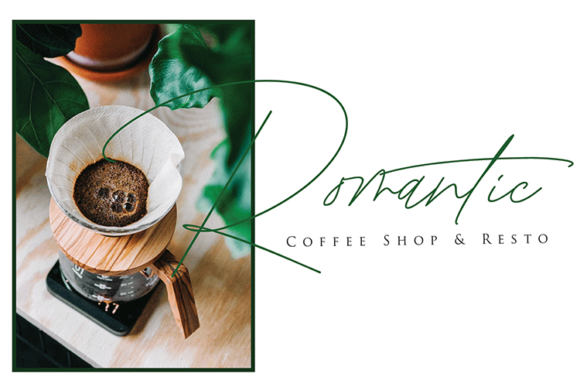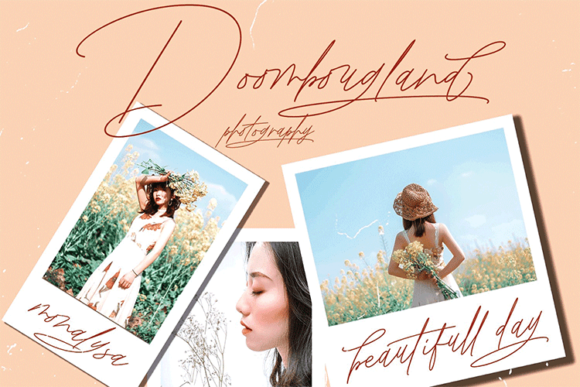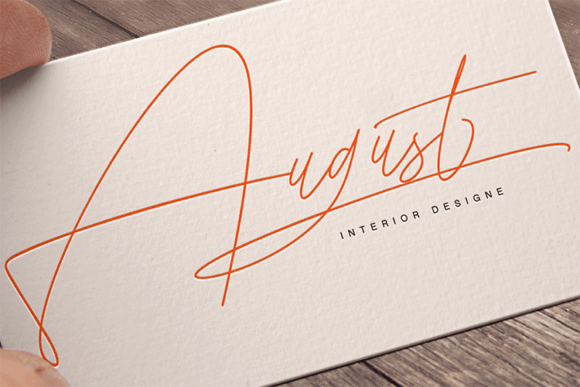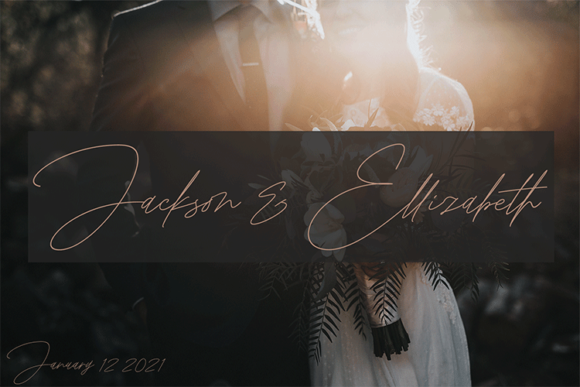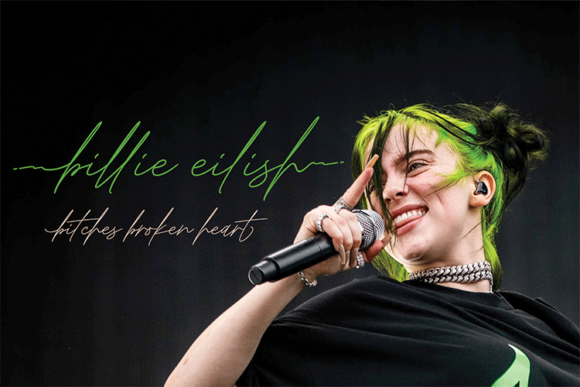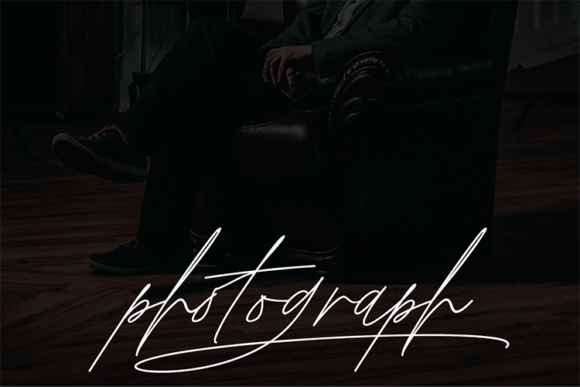
Introduction to Rosebondy Font Font
Fonts play a crucial role in design, and the Rosebondy Font font is a typeface that brings both character and versatility to any project. Whether you’re working on a branding project, a website, or a print design, the Rosebondy Font font offers a unique style that can elevate your work.
Rosebondy is a lovely and timeless handwritten font.
It is the best choice for creating eye catching logos, branding and quotes This font is PUA encoded which means you can access all of the glyphs and swashes with ease.
The Rosebondy Font font is more than just a typeface – it’s a design tool that helps you communicate your message with style and clarity. Its unique character set and versatile design make it suitable for a wide range of applications, from elegant invitations to bold headlines.
With its carefully crafted letterforms and balanced proportions, the Rosebondy Font font ensures readability and visual appeal across all mediums.
The Rosebondy Font font stands out with its unique design, exceptional readability, and versatility across various design applications.